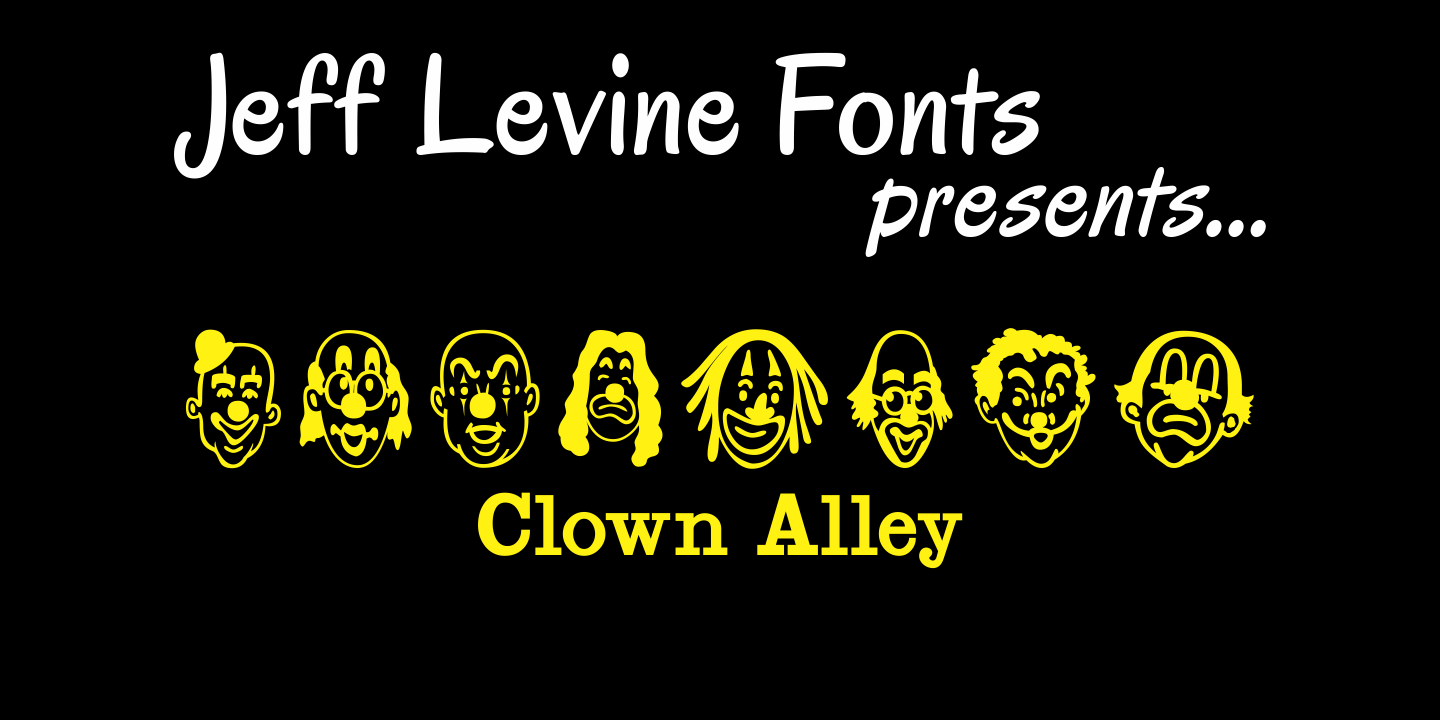
Clown Alley
In the beginning of his typographic design work, Jeff Levine produced a large number of freeware dingbat fonts utilizing very rudimentary font creation software. Although popular in the world of home crafts, there were many issues inherent with those early font files. Jeff has chosen to clean up and update some of these fonts and make them commercially available.